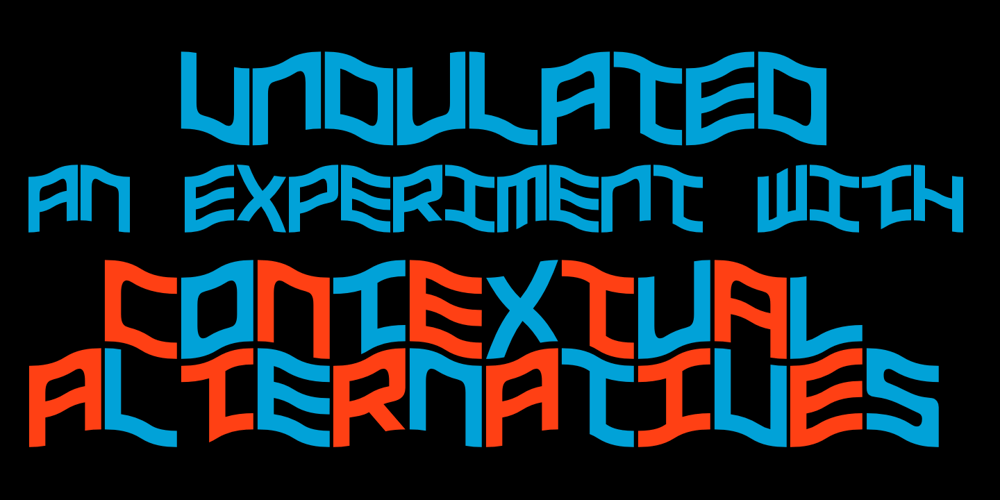
Undulated
Undulated font
Undulated Font Family was designed by Robert Schenk and published by Ingrimayne Type. Undulated contains 2 styles and family package options. Undulated is another typeface family from IngrimayneType that explores the possibilities of alternating letters sets. Undulated is similar to the typeface Undulate. Both alternate two sets of characters to form a wavy line of text. This alternating is done automatically in applications that support the OpenType feature contextual alternatives (calt). However, the peaks and valleys of the wave are in the middle of the characters in Undulate while in Undulated the peaks and valleys are at the right and left edges of each character. The waves in Undulated seem more chaotic and less soothing than the waves in Undulate.Undulated has monospaced and monoline letters. The letter spacing is tight to accentuate the ripple pattern. The family includes an outline style that can be used in a layer above the regular style to add color. The unusual patterns that Undulated gives are eye-catching and may be useful for advertising or signage and in other places where one wants attention-grabbing lettering.